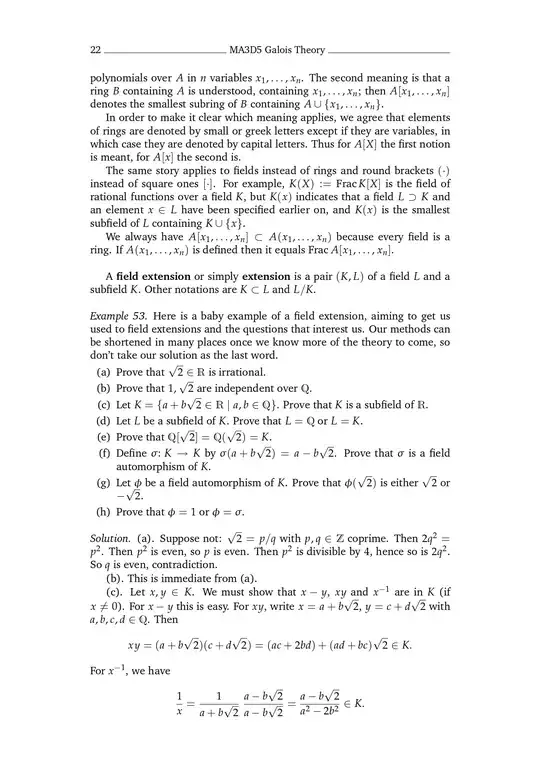
looking at https://www.studocu.com/en-gb/document/the-university-of-warwick/galois-theory/ma3d5-2008-2009-lecture-notes-3-field-extensions/1213177 shows URW Palladio L Italic, CMR10, URW Palladio L Roman
@DavidCarlisle I'd say that the math font is indeed Palladio (except for the double-struck Q maybe), but the body text looks more like ITC Charter. But it is hard to tell from just seeing this JPEG ...
@JasperHabicht see my link above you can't download the pdf from there but the html browser dom inspector lets you see the font of any character, I selected a bit of math and did "inspect" in firefox and looked at the fonts tab
pdffonts? That should answer your question – David Carlisle Oct 25 '23 at 10:48dsrom12– David Carlisle Oct 25 '23 at 14:01